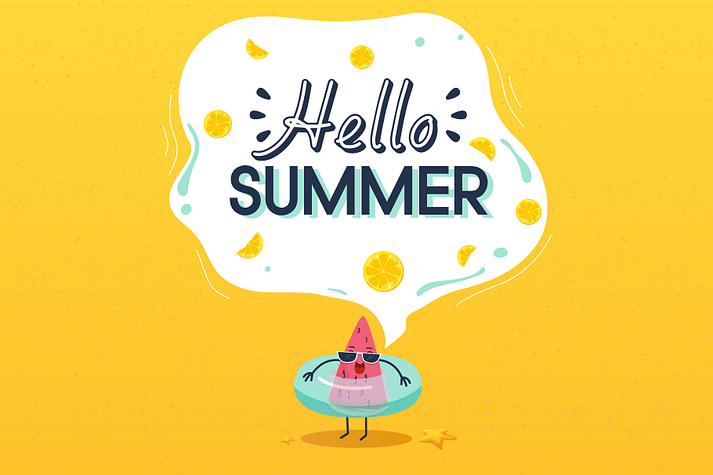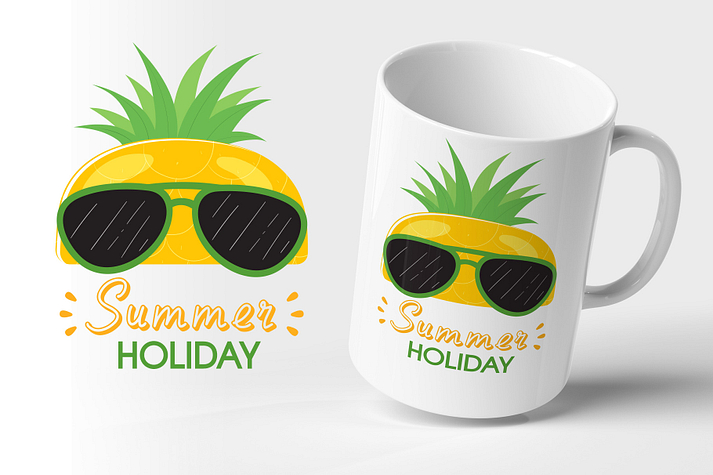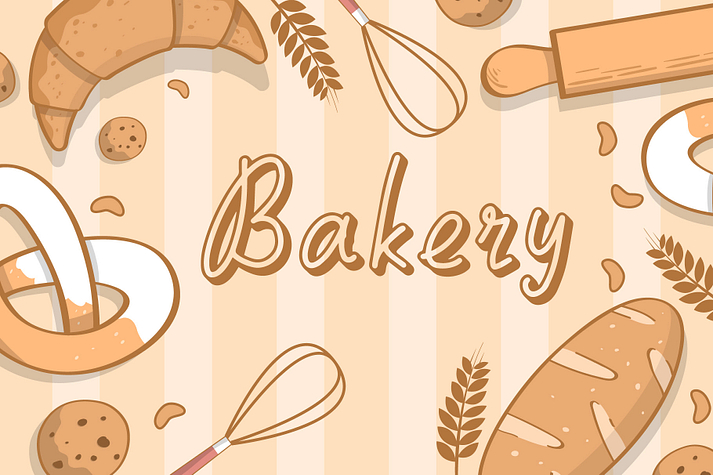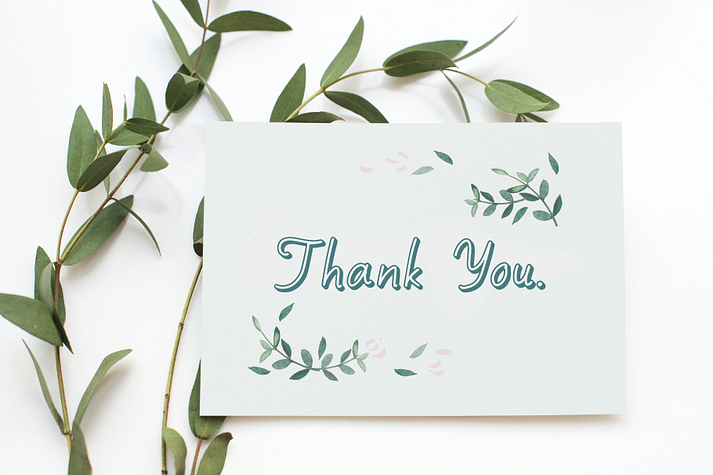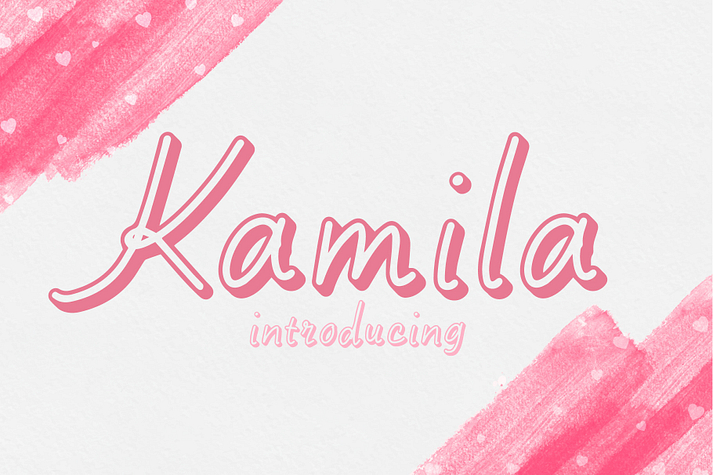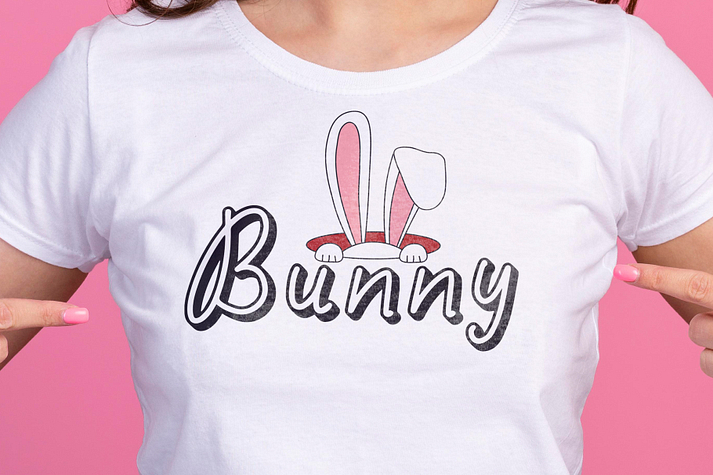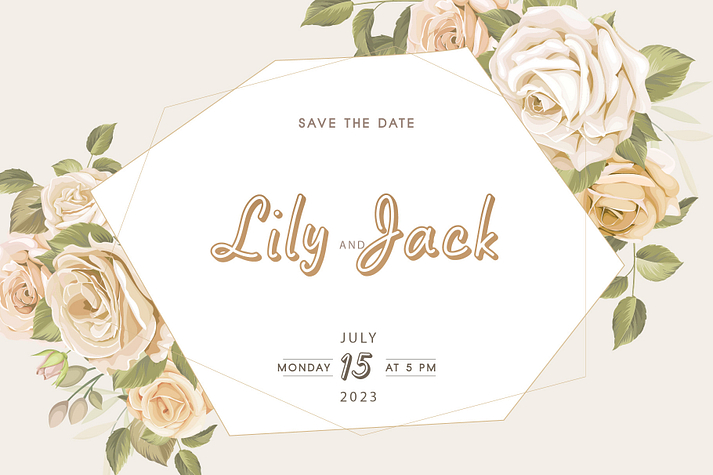
Kamila
Kamila is a font family published by Fox7.
Kamila is a fun and friendly handwritten font. It is ideal for mother’s day cards, weddings, brand names, wall hangings, romantic movie titles, Valentines, or Christmas greetings. It is perfect for children-themed designs, especially when combined with bright colors.